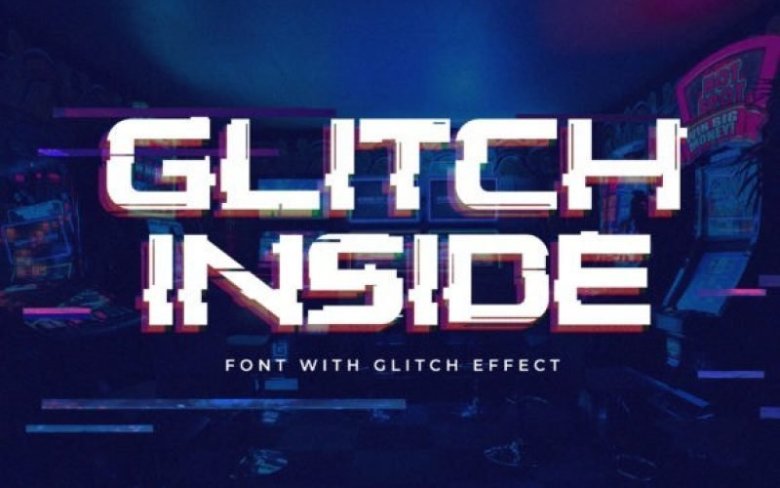
Glitch Inside Display Font
Glitch Inside is a unique and futuristic display font. It celebrates abstract shapes in all their eclectic beauty. Add this font to your creative ideas and notice how it will make them stand out!